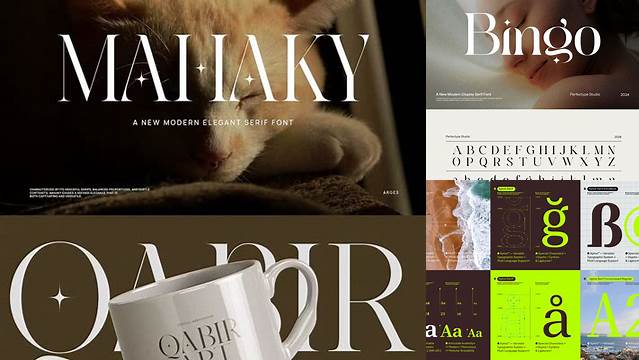
Modern Serif Fonts: A Comprehensive Guide
Hey guys! If you're into fonts and spend any time on Reddit, you've probably stumbled upon discussions about modern serif fonts. They're everywhere, from design subreddits to typography forums, and for good reason! These fonts are a fantastic blend of classic elegance and contemporary flair, making them incredibly versatile for a wide range of projects. This article will explore everything you need to know about modern serif fonts, their popularity on Reddit, and how to use them effectively.
Exploring the Allure of Contemporary Serif Fonts
So, what exactly makes modern serif fonts so appealing? Well, imagine a font that combines the sophistication of traditional serifs with a sleek, modern edge. That's the essence of these fonts. They often feature high contrast between thick and thin strokes, creating a visually striking effect. This contrast, along with their clean lines and often geometric forms, gives them a distinctly modern feel. You can find them used in everything from website headers and branding to print materials like books and magazines. Think of the iconic use of Didot or Bodoni, and you're on the right track. The appeal lies in their ability to convey both tradition and forward-thinking design. This is why they are so popular among designers and typographers. The modern serifs offer a timeless quality while staying fresh and relevant. They can be both elegant and authoritative, making them a go-to choice for anyone looking to make a strong visual statement. The discussions on Reddit often delve into the nuances of different modern serif families, with users sharing examples of how they've used these fonts to great effect. It is like a global community where designers of all levels of experience can learn and improve their design choices. You’ll often see comparisons, recommendations, and even tutorials on how to pair these fonts with other design elements. It's a vibrant space for anyone passionate about typography. Choosing the right font for your project is an art form, and modern serifs provide a vast palette of possibilities. The contrast and structure make them ideal for headlines. At the same time, the legibility of many modern serif fonts makes them perfect for longer-form text. This versatility is a core part of their charm, contributing to their continued relevance in the design world.
The Evolution of Modern Serif Font Styles
The history of modern serif fonts is fascinating, tracing back to the late 18th century. Designers were constantly pushing boundaries. The initial wave saw the emergence of fonts like Didone, which are characterized by their extreme contrast and vertical stress. These fonts were a direct response to the technological advancements of the printing press, which allowed for more detailed and refined typefaces. As printing technology evolved, so did the fonts. In the 19th century, we saw a shift towards more geometric and stylized serifs. These fonts were often used in advertising and signage, reflecting the fast-paced industrial revolution. The modern serifs you see today are a direct result of this evolutionary journey. The most important aspect of the evolution is the continuous refinement. Modern serifs today offer a variety of styles and forms. Some still lean into the high contrast of their predecessors, while others offer softer, more approachable designs. A quick scroll through any design subreddit will show you the sheer diversity within this font category. You'll find everything from classic revivals to completely new and innovative designs. This continuous evolution is one of the reasons why modern serifs remain so popular. Designers constantly explore new ways to use and adapt these fonts, leading to new aesthetics and styles. The evolution doesn't stop there; it continues with each new iteration. It's a dynamic process that ensures that these fonts remain fresh and relevant. They adapt to the changing needs and preferences of designers and consumers alike.
Key Characteristics of Modern Serif Fonts
When you're browsing modern serif fonts or discussing them on Reddit, you'll quickly notice some key characteristics. High contrast is the defining trait of many modern serifs. The difference in stroke weight creates a dynamic and visually appealing look. This contrast often translates to a striking appearance, making them ideal for headlines and display text. Another common feature is a vertical stress. This means the thinnest parts of the letterforms are at the top and bottom. It gives the fonts a formal and elegant appearance, making them a great choice for branding and editorial design. The serifs themselves are often thin, flat, and unbracketed. This means they lack the rounded or curved shapes found in older serif styles. The result is a clean, modern aesthetic. Geometry is another crucial aspect. Many modern serifs have a geometric structure, with letterforms built from simple shapes. This gives them a sense of precision and order. Legibility is often a priority. Despite their high contrast and thin strokes, modern serifs are often designed to be readable, even in smaller sizes. This is a vital consideration, especially if you plan to use them for body text. You should note that the font will change its form as it gets used in different sizes and displays. A font that appears great in a large format may look completely different when rendered on a mobile device or viewed in small sizes. Careful selection is essential. Each of these characteristics contributes to the overall aesthetic and usability of a modern serif font. Understanding these elements will help you appreciate the differences between these fonts. It also helps you choose the perfect font for your project. Understanding the basics of font selection and the common characteristics of each font family will make you better prepared to handle any projects that involve these fonts.
Top Modern Serif Fonts Trending on Reddit
Alright, let's dive into some specific modern serif fonts that frequently pop up on Reddit. These are the ones that get the most love, the ones designers are constantly discussing and using. We will be examining what makes them so popular. We'll look at what makes them perfect for certain projects.
The Timeless Elegance of Didot
Didot is a classic. It's a go-to choice for anyone seeking an elegant and sophisticated look. On Reddit, you'll find it praised for its high contrast, clean lines, and timeless appeal. It is often used in fashion magazines, high-end branding, and any project where a sense of luxury is required. People often talk about how well it pairs with other modern design elements. Its simplicity is its strength. It doesn't try to be overly flashy or complex, and it just works. The conversations on Reddit usually highlight its versatility. It is suitable for both headlines and shorter blocks of text. It's a testament to the quality of the design. Didot has stood the test of time, remaining as relevant and stylish today as it was centuries ago. You'll find it used in different formats and mediums. Didot's influence is widespread. It continues to inspire designers and typographers. Its legacy is a testament to the power of good design, and its discussion on Reddit shows how the design community still appreciates the beauty of such a font.
Exploring the Geometric Precision of Bodoni
Bodoni is another essential name in the modern serif fonts discussion. Known for its sharp contrast and geometric forms, Bodoni exudes confidence and authority. It's perfect for projects that need to make a bold statement. On Reddit, you'll often see it discussed in the context of branding and editorial design. The geometric precision of Bodoni gives it a distinct edge. Users often share examples of how they've used it for logos, headlines, and even website layouts. While Bodoni is elegant, it also has a certain sharpness. It's important to use it carefully, as its high contrast can sometimes make it less readable in large blocks of text. But when used correctly, the impact is undeniable. The conversations on Reddit focus on the different weights and styles of Bodoni. Designers discuss how to best utilize the font's versatility. You will learn how to leverage the power of this iconic font to create stunning visuals. Bodoni's geometric forms offer a unique and powerful visual language. When used appropriately, it can elevate any design. This is why designers around the world still prefer to use Bodoni, and this explains why it's a constant topic on the Reddit discussions about fonts.
The Versatile Charm of Playfair Display
Playfair Display has become a popular choice. It’s a great option for headlines and titles. Its design is influenced by the Didone style, with a modern twist. On Reddit, you’ll see it praised for its versatility. It is frequently used in websites, blogs, and other digital projects. This is because it is very readable, even at smaller sizes. Discussions often focus on how well it works in various contexts. It can be used for both digital and print materials. The font's elegant appearance is very inviting. It is often paired with simpler sans-serif fonts for body text. This creates a visually balanced design. Playfair Display also has a wide range of weights and styles. The font is easy to use in different project settings. Its availability on Google Fonts makes it easily accessible. It's a favorite of designers and enthusiasts. It continues to be a staple in the font community.
Reddit Communities for Modern Serif Font Enthusiasts
If you're eager to delve deeper into the world of modern serif fonts, Reddit is the place to be. Several communities are dedicated to typography and design. They are perfect for sharing ideas. We'll look at some of the most active and engaging subreddits.
Navigating the r/typography Subreddit
If you want to know about modern serif fonts, you should start with r/typography. It's the largest and most active typography community on Reddit. The community is great for sharing insights and discussing different fonts. You'll find everything from font recommendations to in-depth analyses of specific typefaces. Users often post their design projects. They also seek feedback on their font choices. r/typography offers a wealth of information and inspiration for anyone interested in typography. The conversations range from basic design principles to advanced techniques. It's a great place to learn about the technical aspects of typography. It is also a fantastic place to discover new fonts. Many discussions center on modern serif fonts. People often ask for recommendations, post examples of font pairings, and analyze the visual impact of different designs. The community is very supportive and welcoming to newcomers. If you are a beginner, don't be afraid to ask questions. The moderators and experienced users are always willing to help. The subreddit is not just a source of information. It is also a place to connect with other designers and enthusiasts. You can build relationships and expand your network. This is a great space to stay informed about all things typography. It is especially useful for modern serif fonts. The community is actively involved in exploring the ever-evolving world of type.
Discovering Design Inspiration in r/design
If you're looking for a broader perspective, r/design is a great place to find design inspiration. It's a general design subreddit. You'll find discussions about modern serif fonts in the context of branding, web design, and graphic design. The content is very diverse. Users share projects and discuss various design choices. The subreddit can be a source of creative ideas and inspiration. You will discover how modern serif fonts are used in different applications. The discussions are less focused on the technical details of typography and more on the overall design aesthetic. It's a place to see how fonts fit into larger design projects. This provides a more holistic view of design trends. r/design is great for seeing how other designers are using modern serifs in their work. You can gain insights into current design trends. It is a great place to get feedback on your own projects. You can showcase your work. If you are looking for help with your font choice, this is also a good place. You can get ideas on which fonts pair well with other elements of your designs. It's an excellent resource for designers of all levels. It offers a constant stream of ideas and creative content.
Engaging in r/graphic_design Discussions
For a more focused approach, r/graphic_design is an excellent choice. It's a specialized community. The discussions are about modern serif fonts in professional design contexts. You'll find in-depth discussions about the technical aspects of font usage. This includes topics like kerning, leading, and font pairing. The subreddit is filled with professionals and experienced designers. You can get practical advice and feedback on your projects. They focus on how these fonts impact the visual language of your projects. It is a great resource if you are looking to master the art of font selection. People often post their projects and seek advice on font choices. The community is very active and engaged. You will find detailed discussions about the suitability of different fonts for specific projects. The conversations cover everything from corporate branding to website design. You will find valuable resources, tutorials, and practical advice. r/graphic_design is the perfect place to refine your design skills. You can stay informed on the latest design trends. You can connect with a community of passionate and knowledgeable designers. The feedback is very important, as it will help you level up your skills.
Pairing Modern Serif Fonts for Optimal Design
So, how do you use modern serif fonts effectively? One of the most crucial aspects is pairing them with other fonts and design elements. The right pairing can make all the difference. Here are a few tips for creating visually appealing designs.
Complementing with Sans-Serif Fonts
A common and effective strategy is to pair modern serif fonts with sans-serif fonts. The contrast between the two font types creates a dynamic and balanced look. The modern serifs provide a sense of elegance and sophistication. The sans-serif fonts bring a clean and modern aesthetic. This combination is often used in websites, brochures, and other design projects. The key is to choose sans-serif fonts that complement the characteristics of the modern serif font. For example, if you are using a high-contrast serif font, you might pair it with a clean, geometric sans-serif font. This will maintain a sense of balance and harmony in your design. Discussions on Reddit often highlight the importance of selecting the right sans-serif fonts. You will see different examples of what pairings work best. You will see the variety of choices that are available. Using the right sans-serif fonts is important. It can make the design look professional and well-executed. You can also choose a more modern sans-serif. They work really well with the modern serif fonts.
Harmonizing with Other Design Elements
Beyond font pairings, it's crucial to consider how modern serif fonts interact with other design elements. This includes the overall layout, color palette, and imagery. The goal is to create a cohesive and visually appealing design. If you are using a bold modern serif font, you might want to balance it with a clean layout and a muted color palette. This will prevent the design from feeling overwhelming. The interplay between the font and other elements is very important. Consider the style and feel of the font. This will help you to decide if the font matches the overall design. For instance, if you are designing a luxury brand, you might opt for a sophisticated modern serif font. Then, use high-quality imagery. Use a color palette that evokes a sense of elegance. In the Reddit communities, you'll find discussions on the relationship between typography and design. You can find ideas about font pairings and overall design choices. You will discover how to integrate modern serif fonts with other visual elements. The result will be a design that is both beautiful and effective. Careful consideration of each element is necessary.
Mastering Hierarchy and Readability
When using modern serif fonts, it's also essential to prioritize hierarchy and readability. This is especially important when designing for the web or print. You want to make sure that your message is clear and easy to understand. The use of different font weights and sizes can help you create a clear visual hierarchy. Use bold or larger fonts for headings. They will stand out from the rest of the text. This will make it easier for your audience to navigate your content. The most important part of any design is that the message is conveyed clearly. Consider the readability of your chosen font, especially for body text. Some modern serif fonts are better suited for headlines and display text. Others are readable in smaller sizes. This will make your content more accessible. Make sure your chosen fonts are optimized for the context in which they will be used. Reddit users often discuss best practices for typography. This includes how to create effective headings, subheadings, and body text. You can also get useful advice on font size, line spacing, and other factors that can affect readability. By prioritizing hierarchy and readability, you can create designs that are both visually appealing and effective.
Common Mistakes to Avoid with Modern Serif Fonts
Even the best designers can make mistakes, especially when working with modern serif fonts. These fonts are powerful. To avoid any issues, it is important to know what to watch out for. Here are some common pitfalls to avoid when using these fonts.
Overusing Modern Serifs
A common mistake is to overuse modern serifs. These fonts can be bold and striking. They can overwhelm your design if used for everything. Overusing can make your designs feel cluttered and unappealing. A better approach is to use modern serifs strategically. Reserve them for headlines, titles, and other display text. Pairing them with a more neutral font for body text can create a more balanced and readable design. Reddit discussions often highlight the importance of a balanced approach. You can find lots of discussions and opinions regarding font choices. Experimenting with different pairings is also a good idea. This will help you to determine the best approach. You will learn how to create a more appealing and effective design. The goal is to create a design that is not only visually appealing but also easy to read and understand. The key is to keep things simple and to use your font choice to provide a feeling of sophistication.
Neglecting Kerning and Leading
Kerning and leading are essential elements of typography. Neglecting them can ruin the visual appeal and readability of your designs. Kerning refers to the spacing between individual letters. Leading refers to the spacing between lines of text. Poor kerning can make text look uneven and awkward. This will create a visual that's difficult to read. In the Reddit communities, you'll often find discussions about kerning and leading. Designers share tips on how to adjust these settings for different fonts. The goal is to create text that is both visually appealing and easy to read. It is not enough to select a font; you must also adjust the kerning and leading. These adjustments are vital for improving the overall appearance and readability. If you ignore them, you may make text look bad. You may create a design that is difficult to read. By paying attention to kerning and leading, you can avoid these issues and create designs that are both visually appealing and easy to read.
Ignoring Context and Purpose
Another mistake is to choose a font without considering the context and purpose of your design. Modern serifs are versatile, but they are not suitable for every project. A font that works well for a luxury brand may not be the best choice for a children's website. Always consider your target audience and the message you want to convey. The context should influence your choice of font. Take time to evaluate different fonts and design elements. See how they come together to convey your message. The font must match the purpose. Reddit users often share examples of projects. They share their rationale behind their design decisions. This is a great way to gain inspiration. You can learn how to choose the right font. You will learn how to use it in the right context. They often highlight how the choices impacted the project's success. By choosing a font that aligns with the context and purpose of your design, you can create a more effective design.
Resources and Tools for Modern Serif Font Exploration
Ready to dive deeper into modern serif fonts? Here are some resources and tools that can help you explore and experiment with these fonts.
Exploring Google Fonts for Modern Serifs
Google Fonts is a treasure trove of fonts, including many excellent modern serifs. It's a free and open-source library of fonts that you can use in your web and print projects. Google Fonts makes it easy to browse. You can also filter your search. You can search by category, style, and other criteria. This makes it easy to find the perfect font for your project. Reddit discussions often highlight the value of Google Fonts. It is a great resource for discovering new fonts. Users often share examples of how they've used Google Fonts in their projects. They recommend different fonts and share tips on how to use them effectively. Google Fonts is an invaluable resource for designers. It allows them to explore the world of typography. Its vast selection of modern serifs gives you many options. You can find the perfect font for any project.
Utilizing Font Pairing Tools and Websites
Font pairing tools can be incredibly helpful when you are choosing fonts. These tools suggest fonts. They give you examples of how different fonts look together. They provide you with a quick way to explore different combinations. Websites like FontPair and Typewolf are popular resources. They offer curated font pairings. They also provide inspiration and examples of how to use them. Reddit users often share their favorite font pairing tools. They share their insights on how to use them. They discuss the benefits of these tools. These tools can save you time. They can also help you create visually appealing designs. They can help you experiment with different font combinations. They are invaluable resources for any designer.
Staying Updated with Font Trends and Releases
The world of typography is always evolving. New fonts are constantly being released. Keeping up with the latest trends can be challenging. Following design blogs, websites, and social media accounts is important. They provide information about the latest font releases. You can also stay informed about trends in the design community. Reddit is a great place to stay updated. You will discover many font releases. You will find discussions about new fonts. This will help you stay ahead of the curve. Participating in these discussions can help you discover new fonts. You can get ideas and advice from other designers. It is important to keep up with the latest trends. You can create fresh and modern designs. Staying current with font trends is very important in design.
Frequently Asked Questions About Modern Serif Fonts
Let's address some common questions about modern serif fonts that often come up on Reddit and in design circles.
What are the Best Modern Serif Fonts for Websites?
Choosing the right modern serif font for a website requires consideration. Readability, versatility, and aesthetics must be considered. Popular choices often include Playfair Display, which is used for headings and titles. Georgia is a great option for body text. These fonts are known for their legibility. They can work for a variety of screen sizes. Discussions on Reddit often feature web design. Designers share experiences. They suggest the best modern serifs for different design contexts. It’s important to test font rendering. The font must look clear and sharp. It must also render across different devices. Consider these points when choosing the perfect modern serif font for your website.
How do I Choose the Right Modern Serif for My Brand?
Choosing the right modern serif for your brand requires a deep dive into your brand's identity. Consider the values. Think about the brand personality you want to convey. Do you want to create a sense of elegance? Do you want to create sophistication? If so, a high-contrast serif, such as Didot or Bodoni, might be the perfect choice. For a more approachable look, select a font such as Playfair Display. It has a more friendly appearance. It’s important to experiment with different fonts. See which ones feel right for your brand. Consider the overall design. Consider the color palette. Consider your target audience. Discussing these topics on Reddit can provide many insights. The Reddit community is full of designers and brand experts. They can help you select the ideal font for your brand.
Can Modern Serif Fonts be Used for Body Text?
Yes, modern serif fonts can be used for body text, but with a few caveats. Readability is very important when using modern serifs for body text. The high contrast and thin strokes of some fonts can make them difficult to read. Many modern serif fonts are designed with body text in mind. This includes Georgia, which is very readable on screens. It also includes other options. Consider the font size and leading. Ensure that the text is easy to read. It is crucial to test the font on different devices. Make sure it renders clearly at various sizes. Discussions on Reddit often address the use of modern serifs in body text. Designers share the best practices for legibility. You will discover how to get the most out of them.
Where Can I Find Free Modern Serif Fonts?
There are many sources for free modern serif fonts. Google Fonts is an excellent resource. It provides a vast library of free fonts. It includes many modern serifs. Sites like Font Squirrel and DaFont also offer free fonts. Be sure to check the licensing. Ensure that the font can be used for your project. You may need to give credit to the designer. You must comply with any licensing requirements. Discussions on Reddit often highlight free font resources. Users share their favorite fonts. They also give tips on how to find them. The community also provides helpful recommendations and resources.
Conclusion: Embrace the Versatility of Modern Serif Fonts
So, guys, there you have it! Modern serif fonts are a fantastic choice. They offer a unique blend of style and functionality. Whether you're a seasoned designer or just starting out, they are great to learn about. Their adaptability makes them ideal for a wide range of projects. Explore the possibilities. Experiment with different fonts and pairings. Join the conversations on Reddit and other online communities. Embrace the versatility of modern serif fonts. I hope this guide has given you a solid foundation. Happy designing! I'm excited to see what you create!